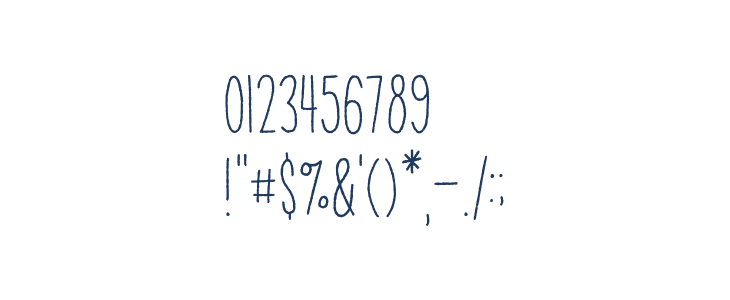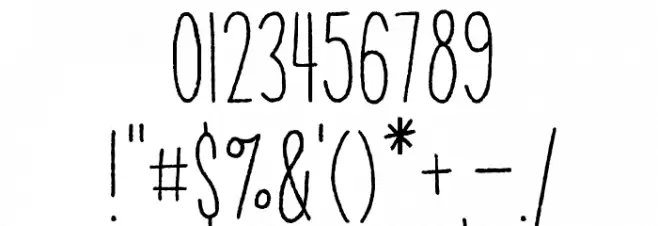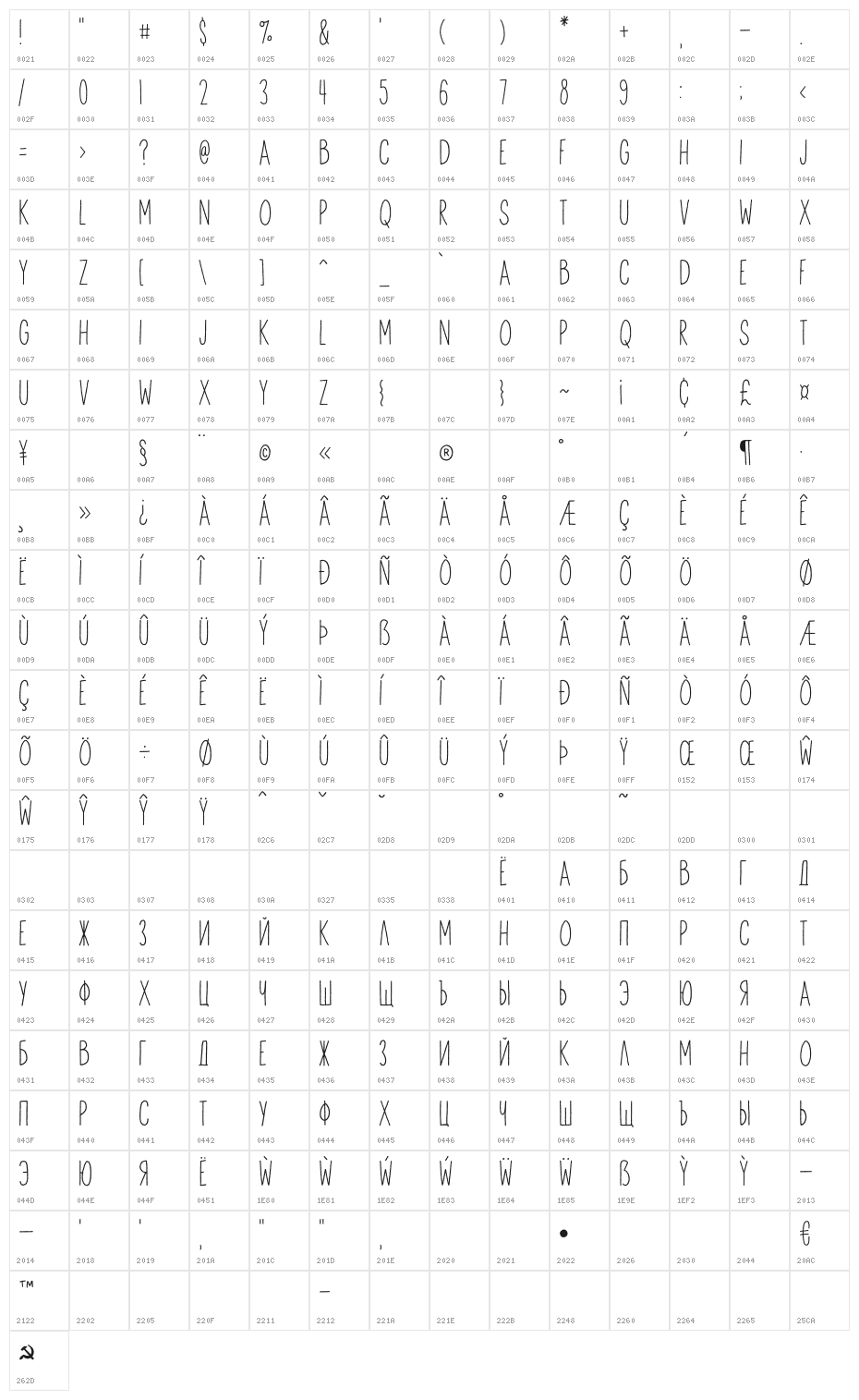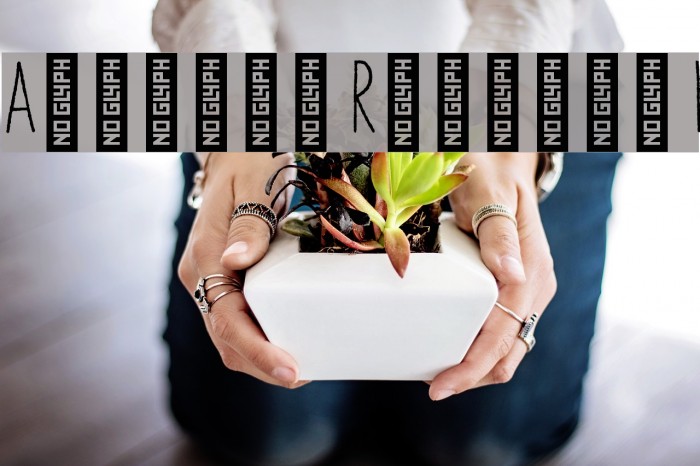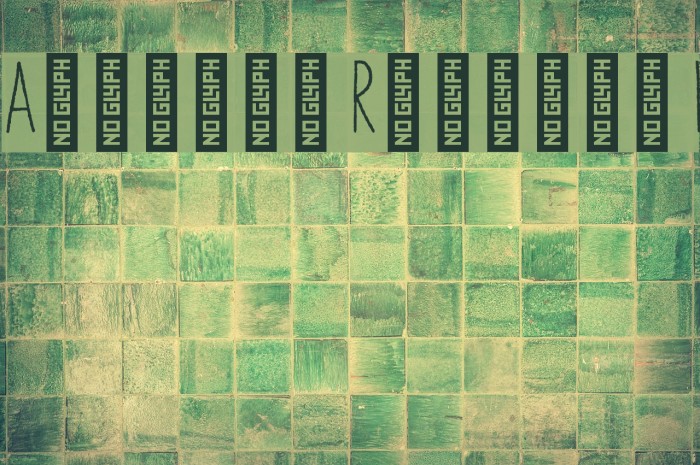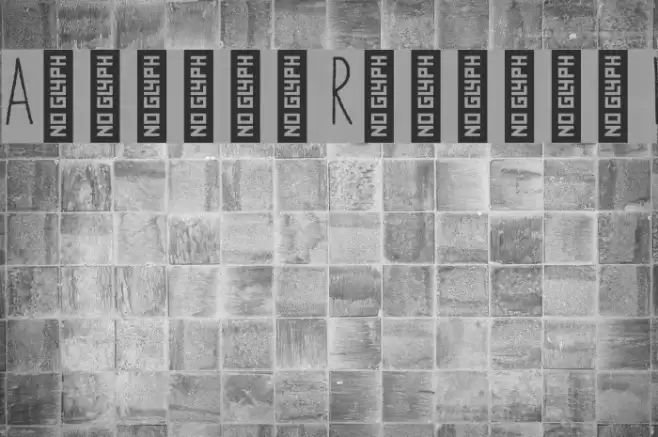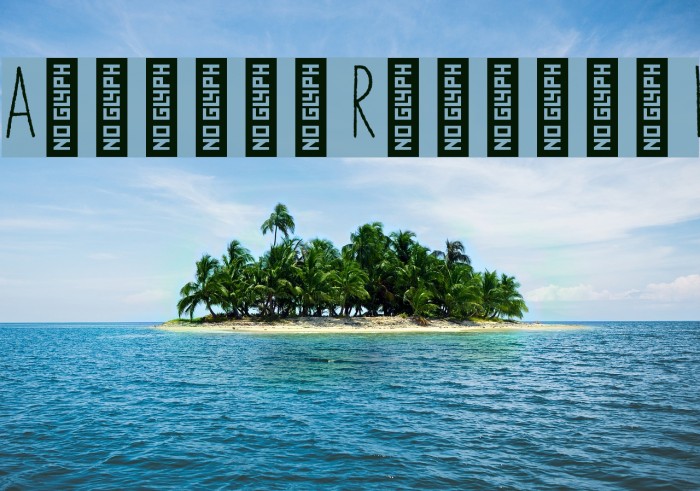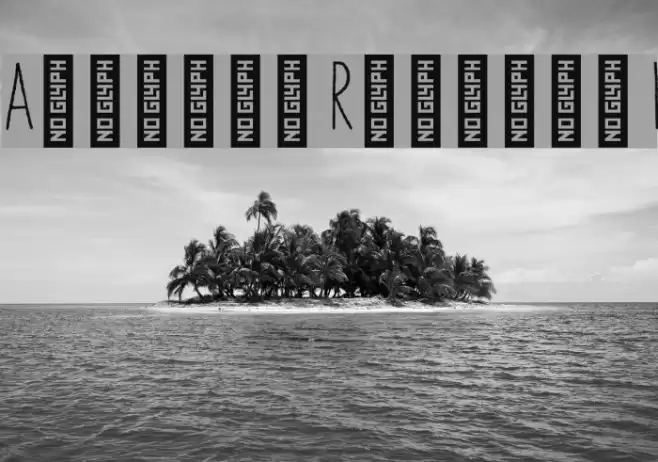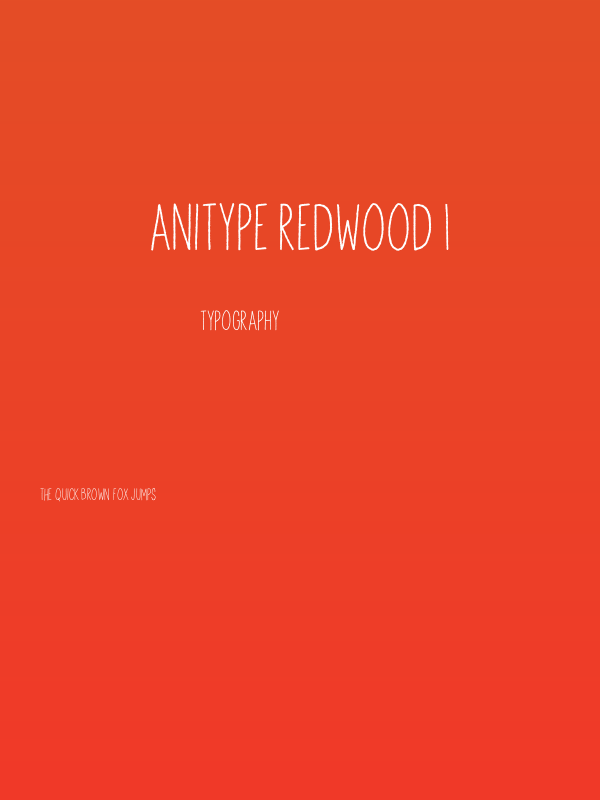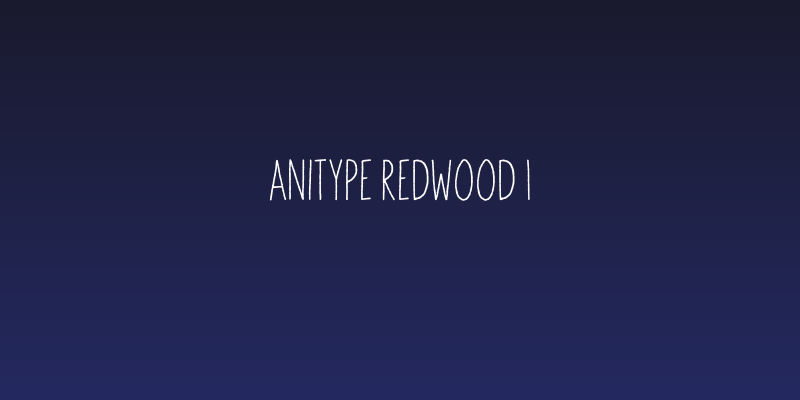
Anitype Redwood 1 Font
Anitype Redwood 1 Description
This font features a handwritten style with tall, narrow characters that convey a casual and informal tone. The uppercase letters are elongated and slightly uneven, adding to the hand-drawn aesthetic. The numerals and special characters maintain this style, providing a cohesive look across all glyphs. The strokes are consistent in width, giving the font a uniform appearance despite its playful nature. This font lacks lowercase letters, focusing instead on a distinct uppercase presentation.
| Proposed Projects | Ideal for greeting cards, personal invitations, and creative branding projects where a personal touch is desired. |